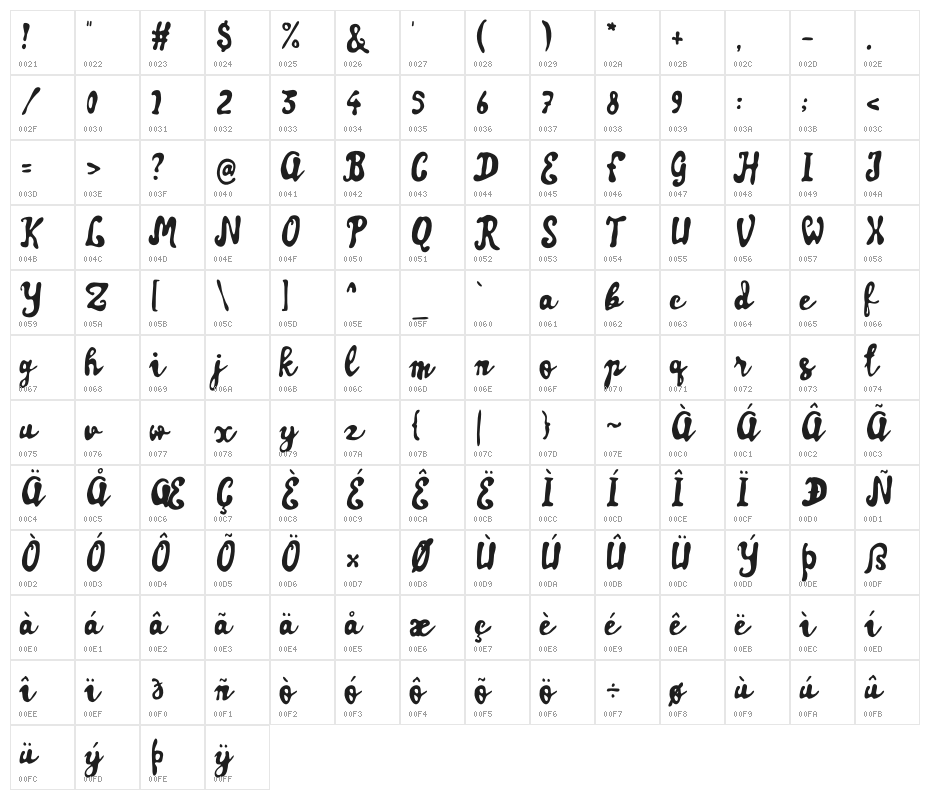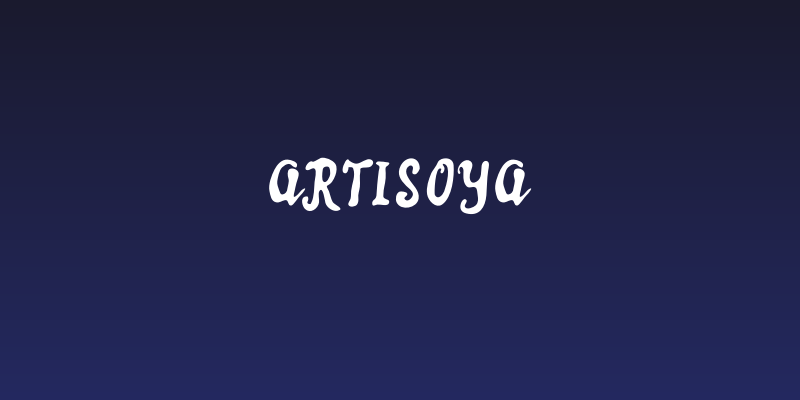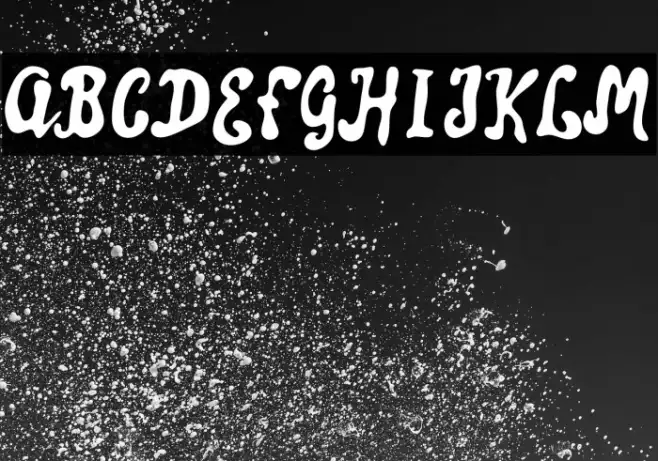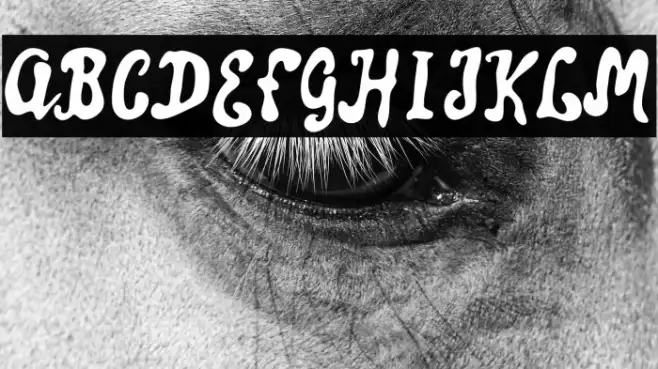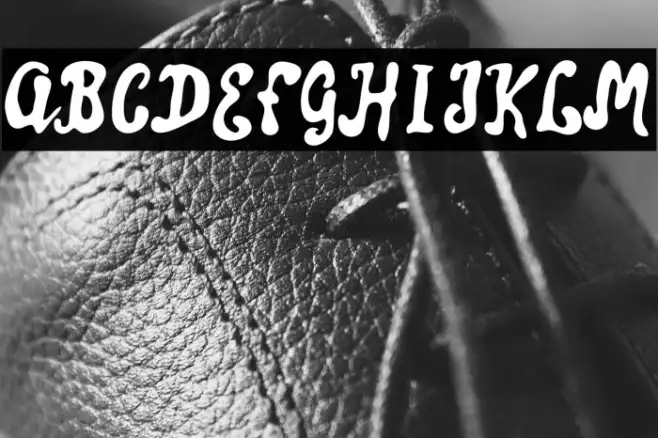
Artisoya Font
Artisoya Description
This font features a bold, playful script style with a handwritten appearance. The characters are rounded and fluid, giving a sense of movement and energy. The uppercase letters are slightly larger and more pronounced, while the lowercase letters maintain a consistent flow. Numbers and special characters are designed to match the whimsical style, making them suitable for creative and informal projects. The overall look is both artistic and approachable, with a touch of vintage charm.